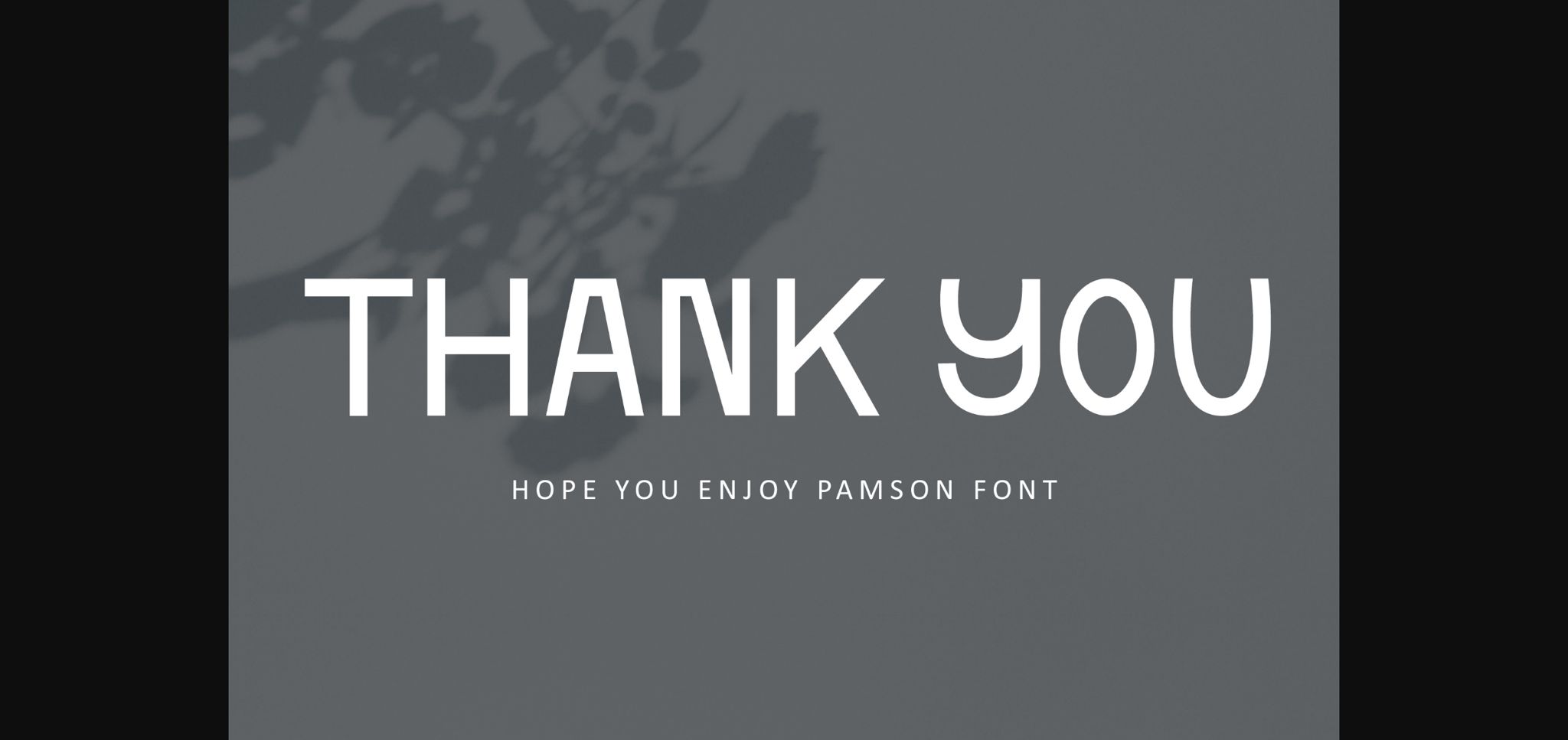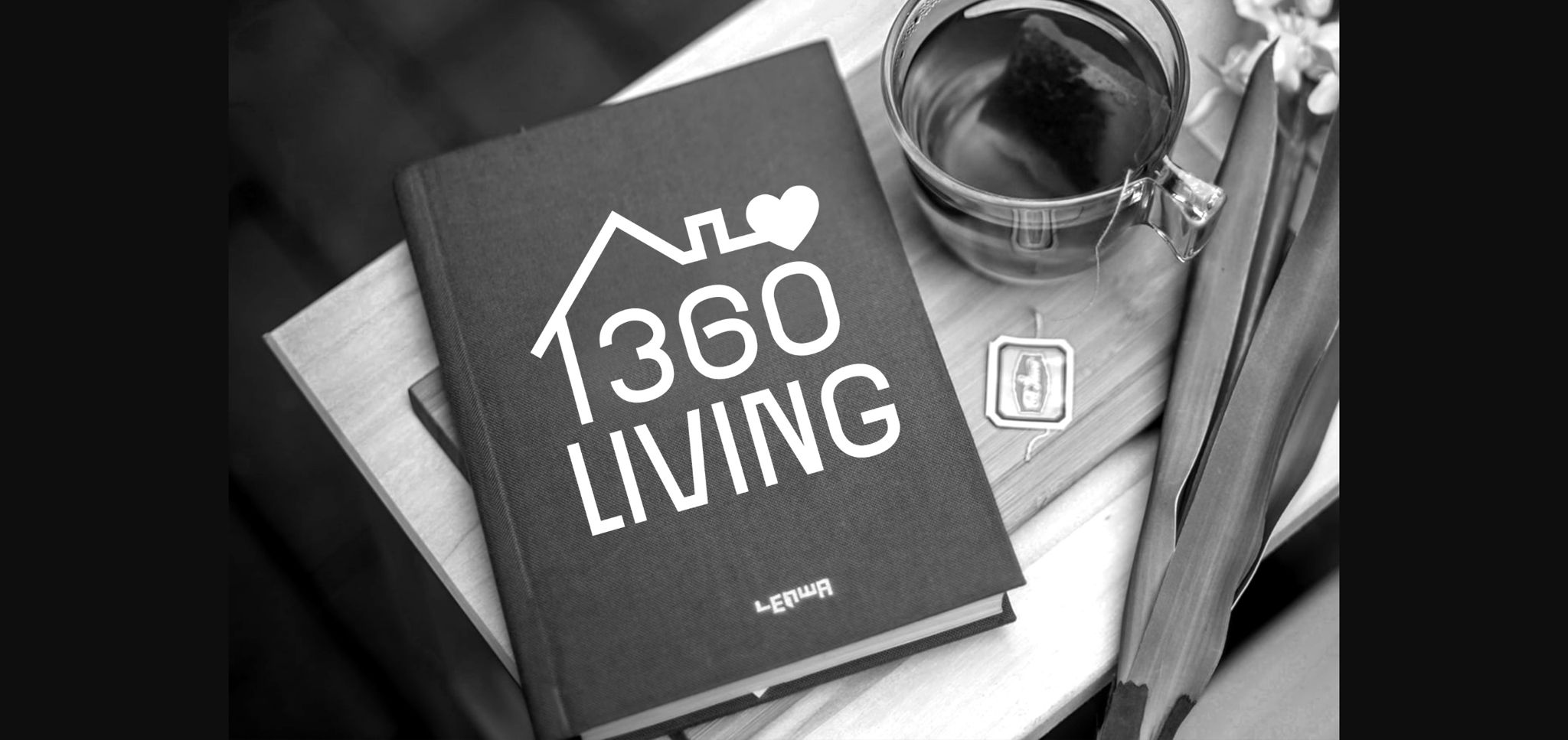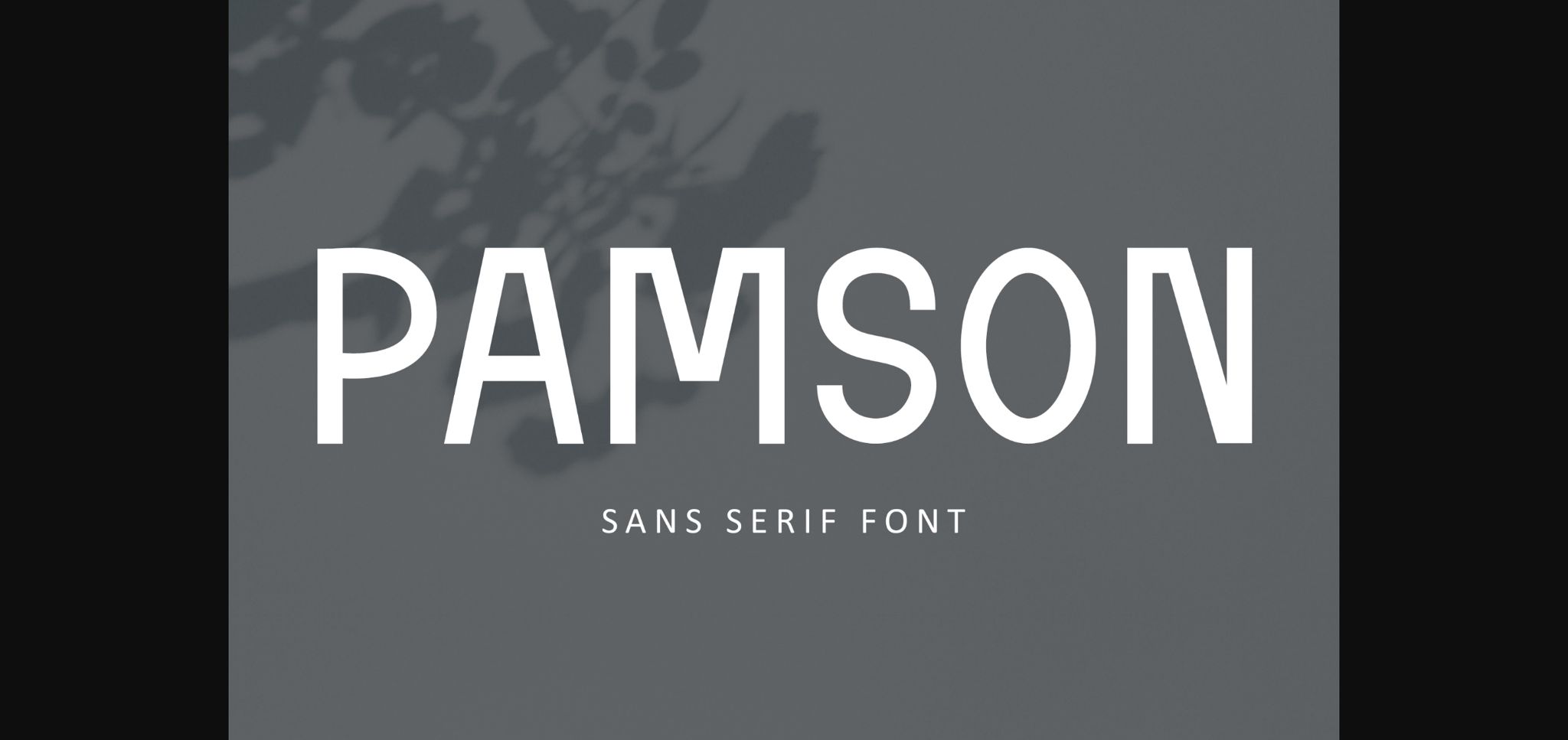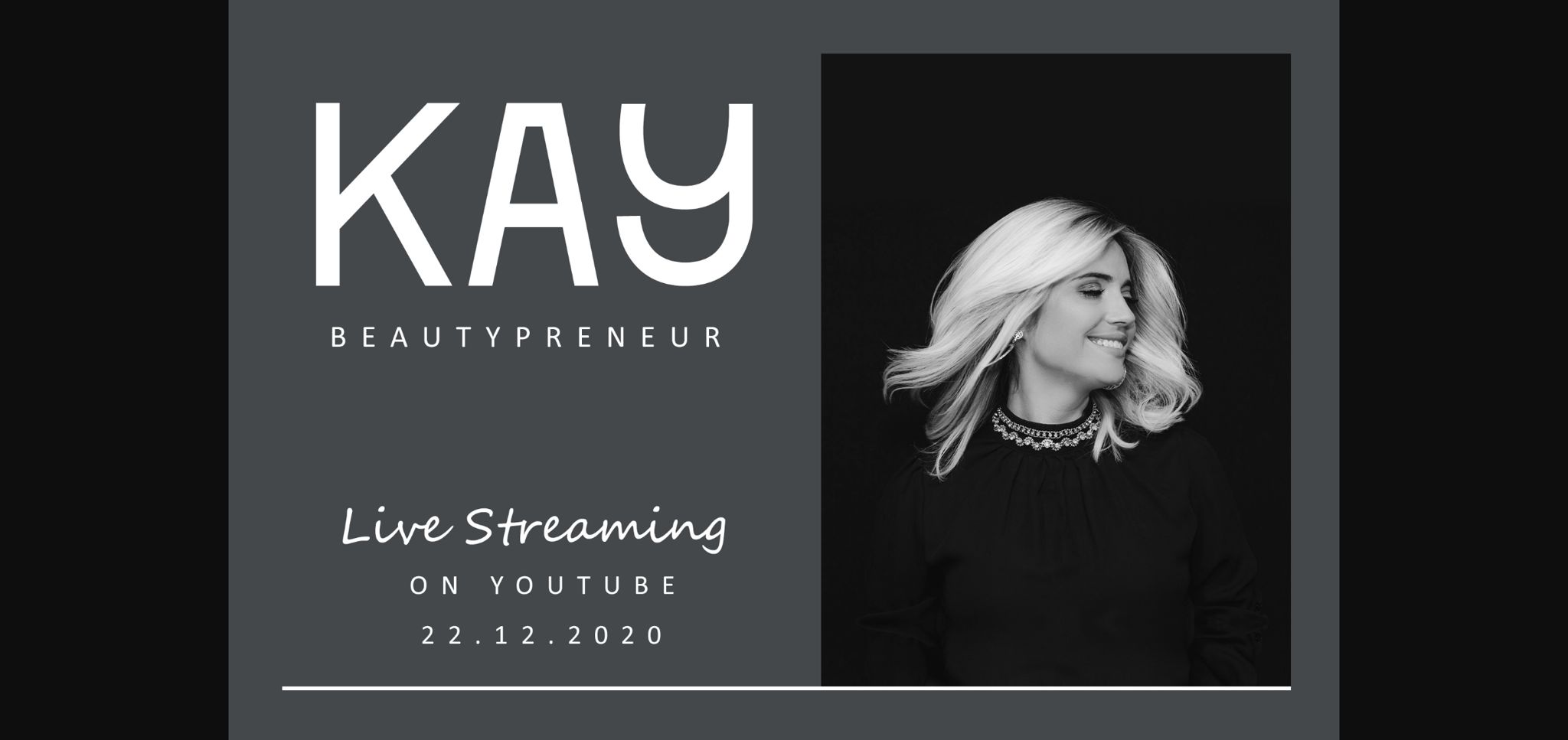
About Pamson Font
Pamson is a bold and simple lettered sans serif font. It can be used for various purposes such as logos, headings, t-shirts, letterhead, signage, labels, news, posters, badges and so much more.